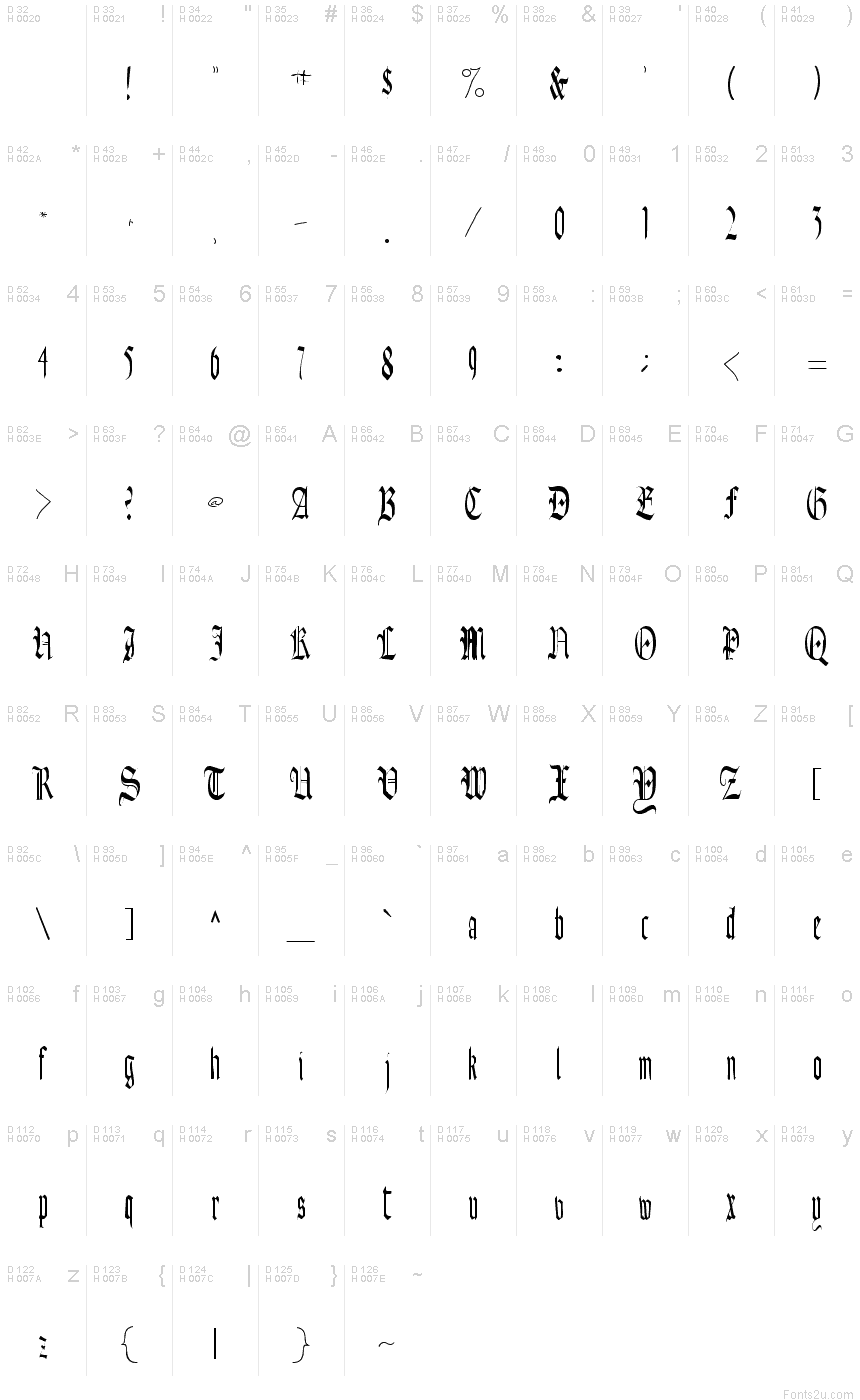
Celebrate Regular
Celebrate font by CompuWorks is a free gothic medieval typeface that drops your design straight into torchlit halls and ink-stained manuscripts. Heavy black strokes, dagger-like curves, and tightly knit letters create a dense, dramatic texture that feels ceremonial and a little dangerous at the same time. It has that hand-lettered, calligraphic weight that makes even a single word look like a crest or spell.
Using Celebrate, this free font shines on fantasy book covers, metal band logos, renaissance fair posters, themed restaurant menus, game titles, and Halloween invitations. Its bold shapes command attention in large sizes, where the ornate details really breathe. For supporting text, pair Celebrate with a clean geometric sans to keep things legible while letting the gothic lettering play the hero.